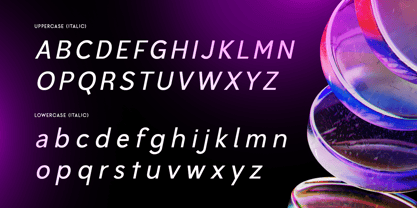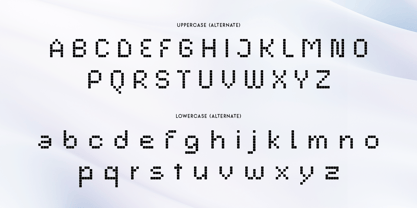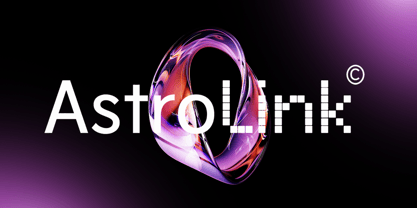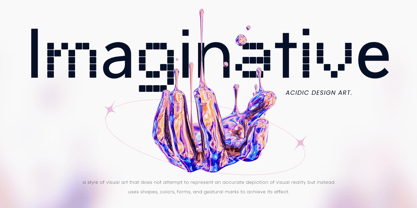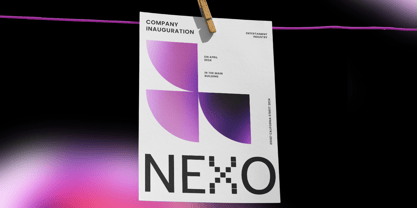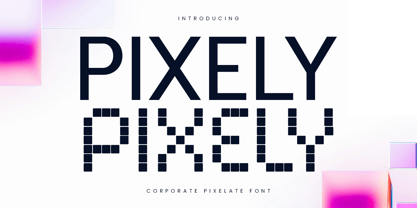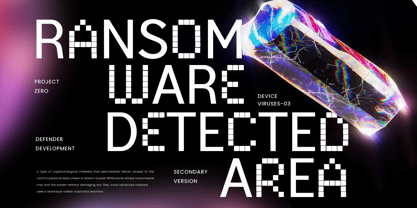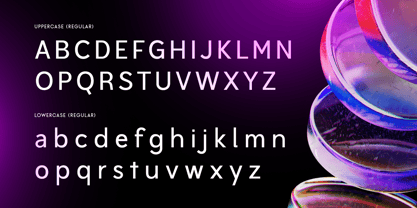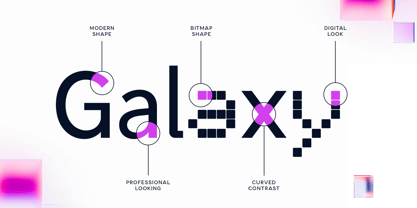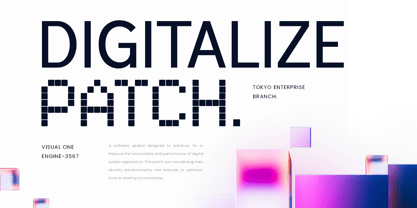
Pixely
by Sensatype Studio
The Pixely Font Family was designed by Zamroni Hamzah and published by Sensatype Studio. Pixely contains 2 styles and family package options.
Pixely - Corporate Pixelate Font & Alternate Font
Pixely is an unique corporate font that combines a clean, modern look with a pixelate twist. This innovative font is designed to bring a fresh and contemporary feel to your digital projects. Whether you're working on a tech startup branding, a sleek website design, or a professional presentation, Pixely offers the perfect blend of style and functionality.
The story behind Pixely is one of innovation and creativity. Inspired by the digital age, Pixely was developed to stand out in the crowded world of corporate fonts. Its pixelate alternates add a distinctive touch, making it ideal for projects that aim to be both professional and cutting-edge. From logo designs to digital interfaces, Pixely is crafted to meet the needs of modern designers looking for something truly unique.
Pixely is packed with features to support your creative vision. With sans serif as normal and pixelate as alternates, it offers a wide range of unique characters to enhance your work. It includes punctuation, numbers, and symbols, as well as both uppercase and lowercase letters. Supporting multiple languages, Pixely ensures versatility for global use. Available in various file formats, it integrates seamlessly into your design workflow.
Pixely Corporate Pixelate Font Features:
• Sans Serif as Normal and Pixelate as Alternates
• Huge Unique Characters Inside
• Punctuation, Number, and Symbol
• Uppercase and Lowercase
• Multilingual Support
• Opentype Features
Designers: Zamroni Hamzah
Publisher: Sensatype Studio
Foundry: Sensatype Studio